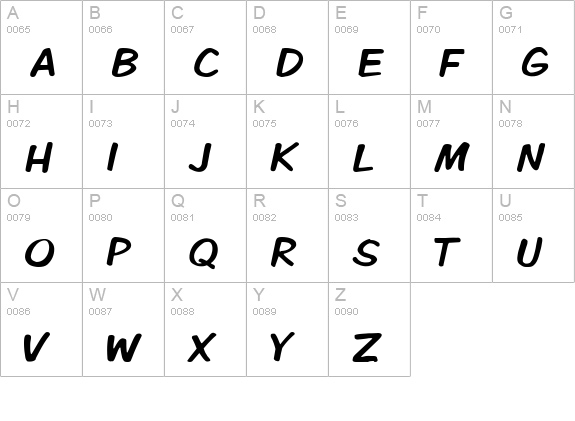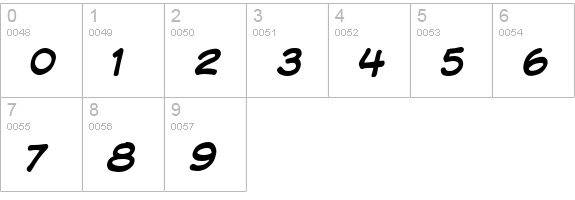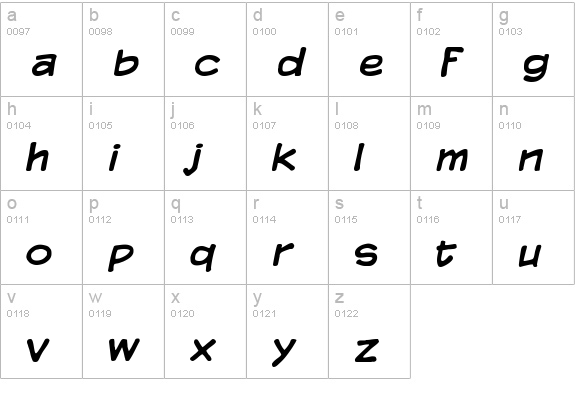
VTCKomixationRegular Font Details
VTCKomixationRegular font is a delightful and playful typeface that is perfect for adding a touch of whimsy to your designs. With its quirky and hand-drawn style, this font is sure to bring a sense of fun and character to any project. The letters in VTCKomixationRegular have a unique and irregular appearance, giving them a charming and homemade feel. Each stroke and curve of the letters has been carefully crafted to create a sense of movement and spontaneity. This font is incredibly versatile and can be used in a variety of design projects. Whether you're creating a poster, logo, or even a comic strip, VTCKomixationRegular will add a cheerful and lively touch to your work. One of the best things about VTCKomixationRegular is that it is available for free! That's right, this fantastic font can be freely downloaded from FontsMarket.com. So you can add this delightful typeface to your font library without breaking the bank. So why wait? Download VTCKomixationRegular today and let your creativity run wild. Whether you're a professional designer or a hobbyist, this font is sure to inspire and delight.